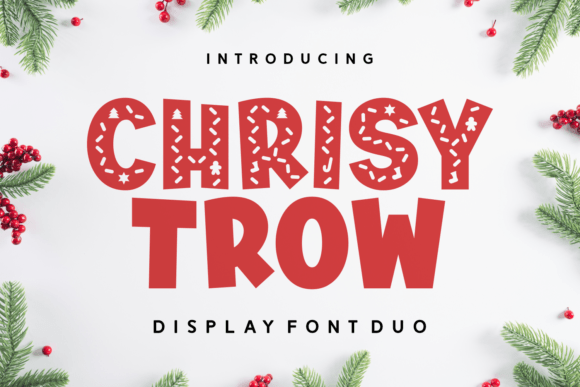
Behold, the enchanting "Chrisy Trow" font family, a decorative masterpiece crafted by the talented Feri (7NTypes), ready to dance across your designs with its yuletide magic. This font is no ordinary typeface; it's a celebration of the Christmas spirit, a visual symphony of festive elements woven into each letter.
Imagine your posters, greeting cards, and decorations adorned with "Chrisy Trow." Its charming Christmas embellishments, from delicate snowflakes to playful candy canes, will evoke the warmth and whimsy of the holiday season. Your words will dance upon the page, spreading joy and merriments with every letter.
With "Chrisy Trow," you'll capture the essence of Christmas in your designs. Its distinct holiday-themed details will transform your words into festive wonders, guaranteed to put a smile on everyone's face.
But "Chrisy Trow" is not just a Christmas delight; it's a versatile font that adapts seamlessly to a variety of design projects. Its playful, carefree nature makes it perfect for adding a touch of whimsy to invitations, party flyers, and even social media posts.
So, embrace the magic of "Chrisy Trow" and let it bring Christmas cheer to your designs. With its captivating holiday elements and versatile charm, this font is the perfect addition to your creative arsenal. Experience the joy of festive typography today!